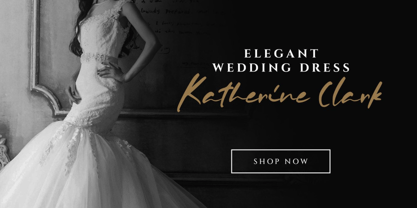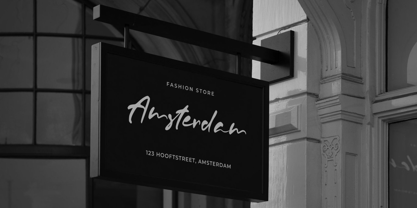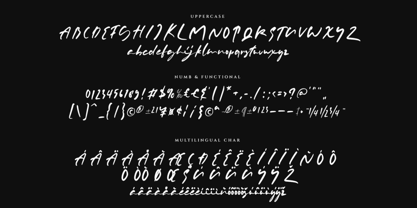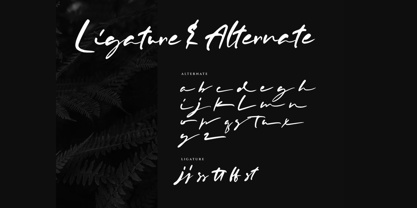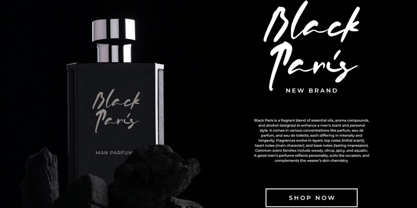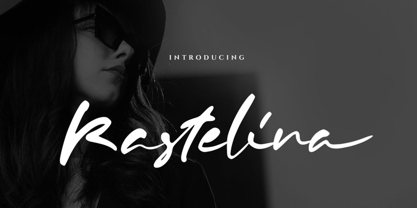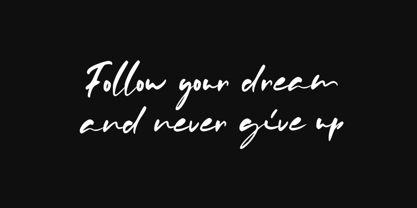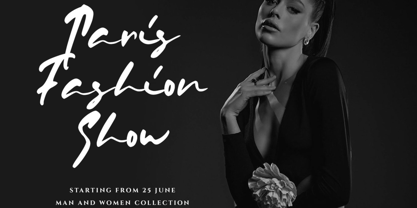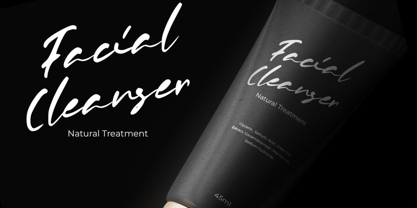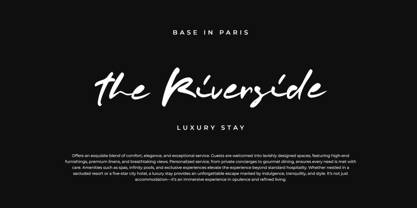
Rosellir
Rosellir is an elegant signature script font that fuses authentic hand-lettering with bold, stylish strokes. Featuring fluid cursive flow and confident linework, this typeface brings a luxurious, personal touch to every project. Whether you’re designing a modern logotype, wedding invitation, or editorial layout, Rosellir adds sophistication and authenticity with every curve.
Crafted to resemble natural handwriting while maintaining high-end design structure, Rosellir is ideal for creatives seeking refined beauty, expressive typography, and a premium handwritten feel.
Key Features:
• Elegant Signature Script Style: Inspired by bold, fluid hand-lettering
• Standard Glyphs & Alternates: Includes alternate letters and stylish ligatures
• Numerals & Punctuation: Fully functional set for complete typographic control
• Natural Flow & Readability: Perfect balance between style and legibility
Perfect For:
• Luxury Branding & Logotypes
• Wedding Invitations & Stationery
• Social Media Posts & Quotes
• Magazine Titles & Editorial Design
• Product Packaging & Labels
• Photography Watermarks
• Fashion & Lifestyle Graphics
• Event Promotions & High-End Marketing
Add personality, class, and handcrafted elegance to your creative projects with Rosellir—a signature font that speaks volumes in style and sophistication.